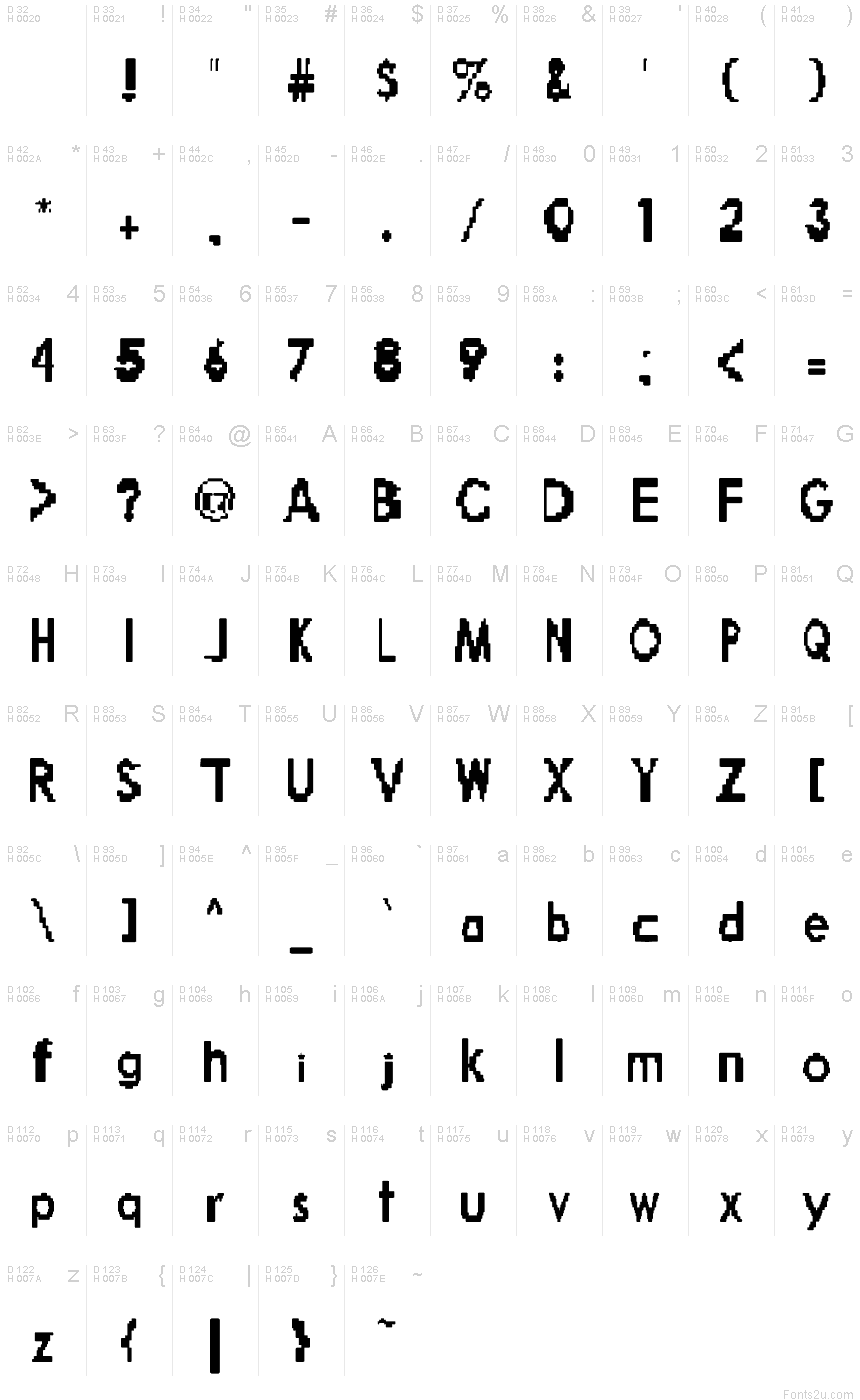
Broken Robot
Broken Robot font by Yellowyellow is a free bitmap pixelated font that looks like it crawled straight out of a glitched arcade cabinet. Each letter is chunky and jagged, with irregular, “broken” edges that keep the blocky forms from feeling stiff. The result is a crunchy, low-res texture that still reads cleanly, giving your layouts an intentional glitchy attitude instead of a sloppy mess.
Using Broken Robot, you can give retro game menus, indie title screens, streaming overlays, zines, stickers, and chiptune album covers a warped digital personality that feels both nostalgic and mischievous. This free font shines at larger sizes where its pixel wobble really shows; pair it with a plain monospaced sans for body text to let the weirdness stay in the spotlight.